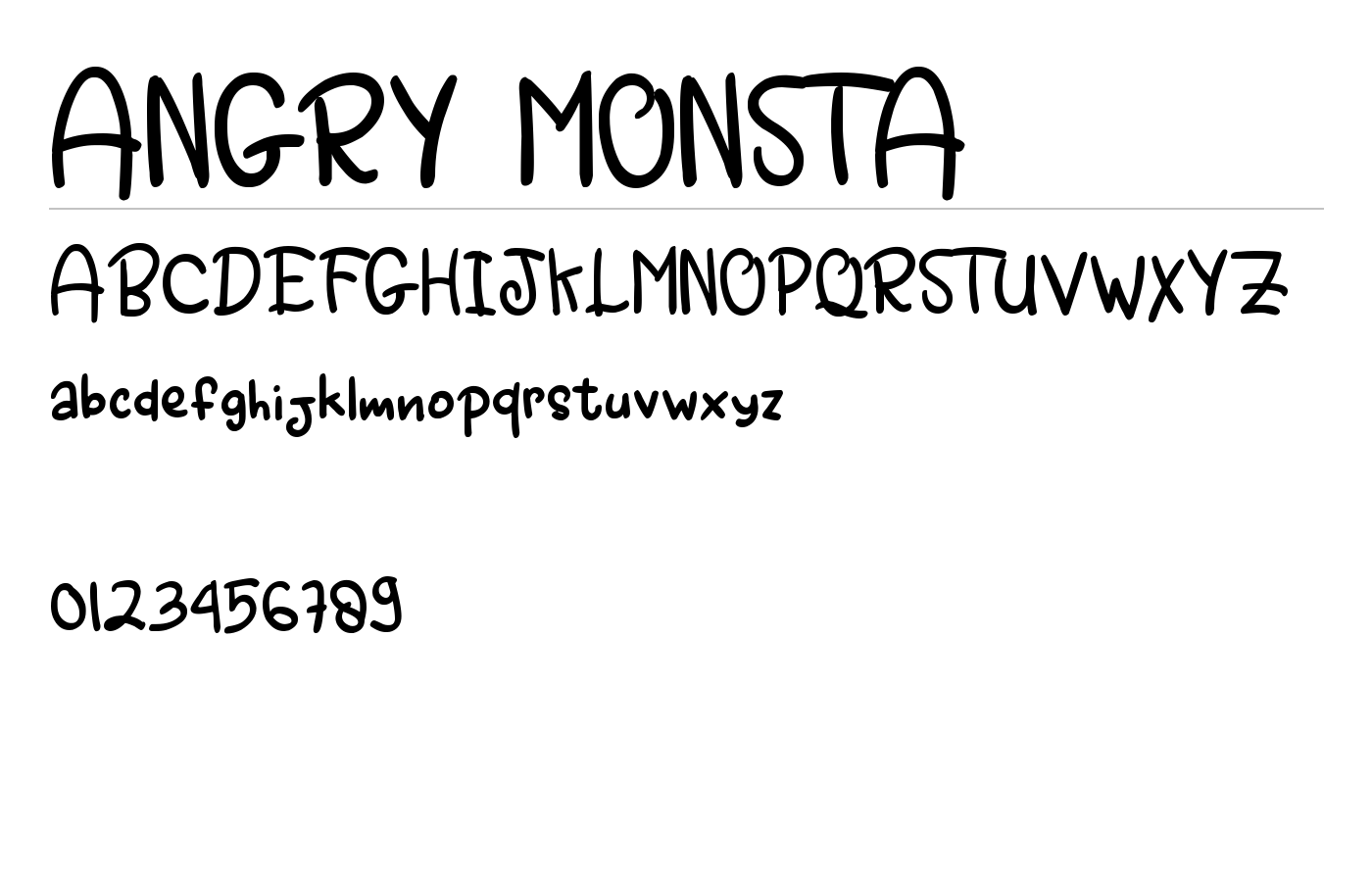
Angry Monsta is a playful, casual handwritten sans serif font with a bold, slightly condensed style and irregular letterforms that give it a dynamic, energetic feel. Its quirky shapes and uneven strokes make it perfect for fun, informal designs like children's books, comic headers, or eye-catching headlines. This font works best where personality and a lighthearted tone are desired rather than formal or serious communication.
ANGRY MONSTA Font
About ANGRY MONSTA Font